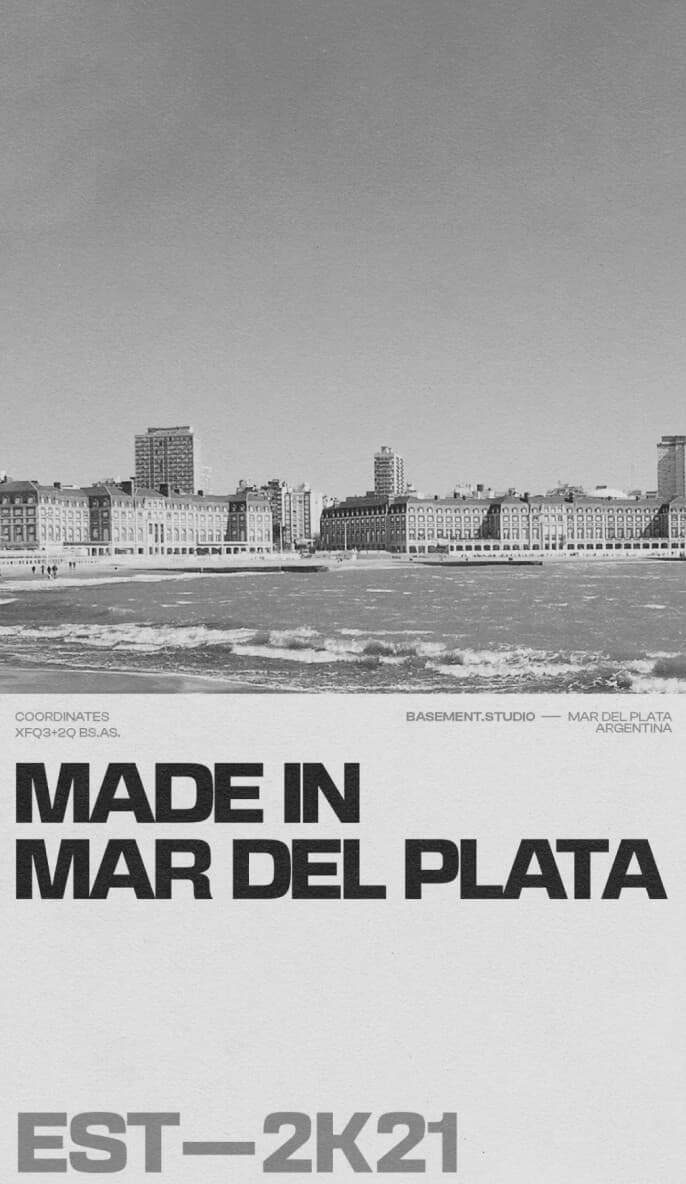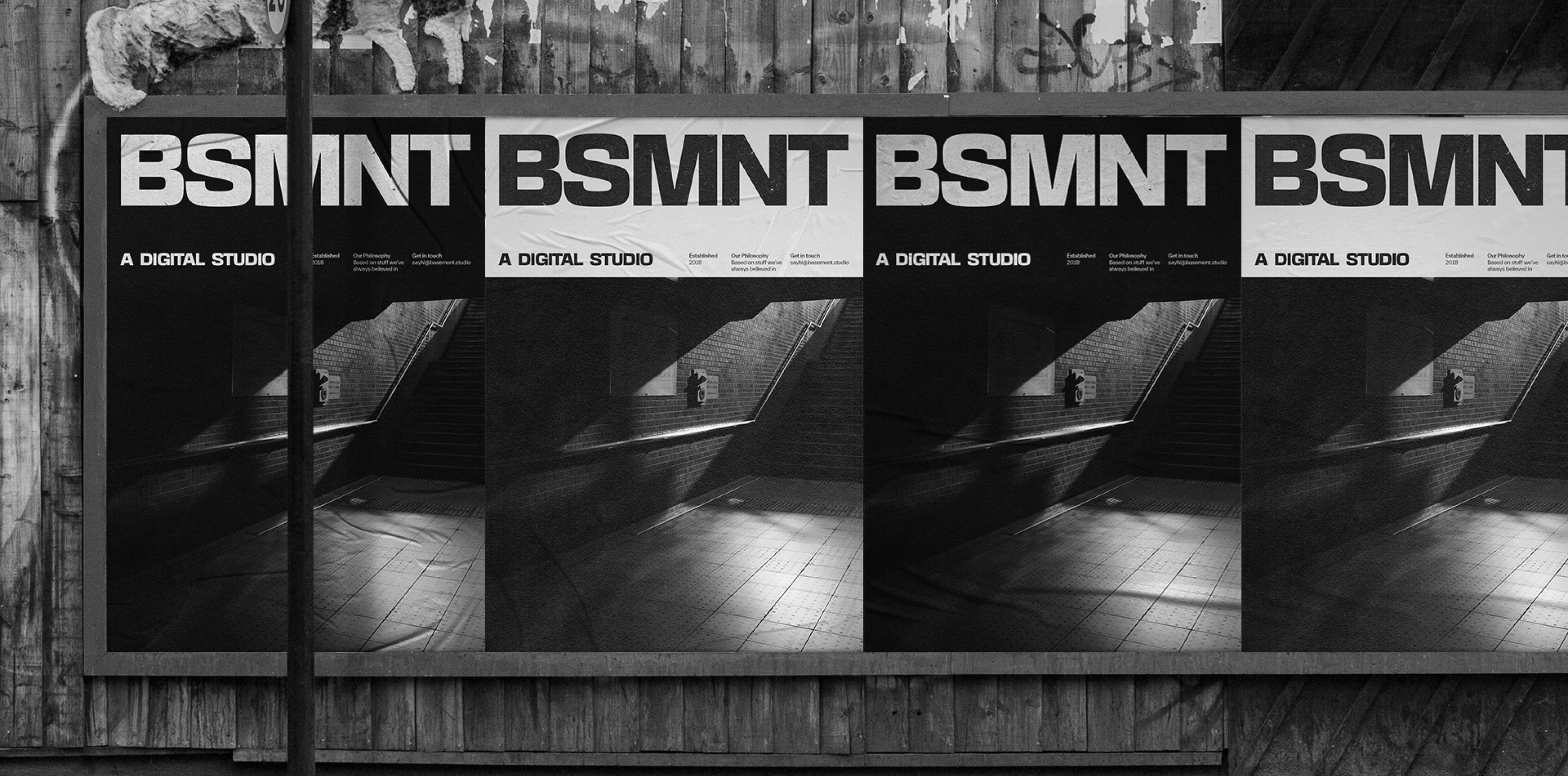
Striking and unapologetic. Inspired by the expressiveness of early 19th-century grotesque typefaces, basement grotesque is the studio’s first venture into the daunting but exciting world of type design.
stylistic set 01
GIÍÎÏÌĪĮJKĶQRaáăâäàāąåãgģkķlĺľļłqrŕřŗyýŷÿỳ&
stylistic set 02
Raáăâäàāąåã&
stylistic set 03
R
DescriptionStriking and unapologetic. Inspired by the expressiveness of early 19th-century grotesque typefaces and the boldness and stark visuals of the contemporary revival of brutalist aesthetics, basement grotesque is the studio’s first venture into the daunting but exciting world of type design.